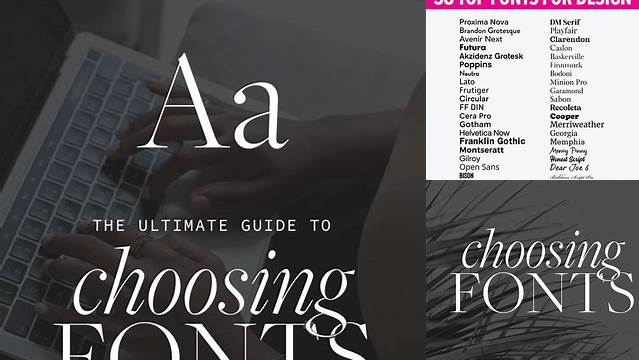
Best Graphic Design Font Websites: A Designer's Guide
Hey guys! Ever wondered where designers find those killer fonts that make websites and graphics pop? Well, you're in the right place! In this comprehensive guide, we'll dive deep into the world of graphic design fonts, exploring the best websites to snag them, how to choose the right ones, and some pro tips to make your designs shine. Whether you're a seasoned designer or just starting, this is your one-stop resource for all things typography.
What are Graphic Design Fonts and Why are They Important?
Let's start with the basics. Graphic design fonts are essentially the visual personalities of your words. They're the typefaces, the styles, the characters that bring text to life. They can be classic, modern, quirky, or elegant. They can whisper or shout. They can be the silent backbone of a design or the loud showstopper. The font you choose can make or break the entire look and feel of your project. It's like choosing the right outfit – it sets the tone and communicates a lot about the wearer (or, in this case, the brand or message).
Fonts are crucial because they impact readability. You could have the most brilliant content in the world, but if it’s written in a hard-to-read font, nobody will stick around to see it. Fonts establish visual hierarchy, guiding the reader's eye to important information. They convey brand personality. Think about it: a playful, bubbly font might be perfect for a children's website, while a sleek, professional font would suit a corporate site. Font selection directly affects user experience (UX), too. A well-chosen font improves UX by making content enjoyable and easier to consume. Fonts can also influence emotions. A script font can evoke a sense of luxury and sophistication, while a bold sans-serif font can create a sense of urgency and modernity. So, the right font enhances the message you're trying to get across and helps it resonate with your audience. Choosing the right font can be a bit overwhelming, especially with the sheer number of options out there. However, with the right knowledge, it becomes a fun challenge that allows you to explore the endless possibilities of visual communication. Let's look at some of the best websites for finding these typographic treasures!
Importance of Font Pairing
Choosing the right font goes beyond just picking a pretty typeface. Another important thing to consider is font pairing. Pairing different fonts together can create visual harmony and interest, but it's also easy to mess it up. The key is to find fonts that complement each other, not clash.
One popular approach is to pair a serif font (like Times New Roman or Garamond) with a sans-serif font (like Arial or Helvetica). Serifs have those little strokes at the ends of the letters, while sans-serif fonts don't. This can create a nice contrast that's easy on the eyes. You might use a serif font for your headings and a sans-serif font for your body text. Consider the styles. If you are using a very modern, bold sans-serif font, consider a more traditional, classic serif font. Avoid pairing fonts that are too similar, as they can look like a mistake. Also, consider the weight and the size of each font. When pairing fonts, aim for good balance. Try to create a balance between these different fonts, so that your design feels professional and easy to read.
Top Websites for Graphic Design Fonts
Okay, let's get into the good stuff: the websites! There are tons of places to find fonts online, from freebies to premium options. Here are some of the best and most popular websites for graphic design fonts:
- Google Fonts: This is a goldmine, especially for beginners. Google Fonts is completely free, and it offers a vast library of fonts that are easy to use and integrate into your websites. The site is user-friendly, with filters for various font properties such as serif, sans-serif, display, and more. All fonts are open source and are well-suited for web use.
- Adobe Fonts (formerly Typekit): If you're an Adobe Creative Cloud subscriber, you get access to Adobe Fonts. This is a massive library of high-quality fonts, and the integration with Adobe products is seamless. It's a subscription service, but it's well worth the investment for the quality and variety. It allows you to browse fonts easily. You can activate them directly from the Adobe apps you use. A cool thing is the font recommendations, which are helpful. It's also a fantastic resource for finding the newest fonts on the market.
- Font Squirrel: Font Squirrel is the holy grail of free fonts. They carefully curate their collection, ensuring the fonts are high-quality and license-friendly for commercial use. It's an excellent resource for designers on a budget. Font Squirrel also has a font identifier tool. This tool allows you to upload an image of a font and identify it, making it easier to find the fonts you want to use.
- DaFont: DaFont is another popular site with a massive selection of fonts. It's easy to browse and download fonts, but be extra cautious about the licenses. Always check the usage rights before using a font for commercial projects. This is a site that is really good for free font, it has a great variety, but always check the license!
- MyFonts: MyFonts is a giant in the font world. They offer a huge selection of fonts, from classic to contemporary. You can browse by font style, designer, and even see what's trending. They also have a font identification tool called WhatTheFont! which is super handy for identifying fonts from images.
- Creative Market: Creative Market isn't just for fonts; it's a marketplace for all sorts of design assets. But they have a fantastic selection of fonts, often created by independent designers. You can find some unique and creative fonts here.
- BeFonts: This website is a very popular website, a great resource for finding premium and free fonts. BeFonts offers a wide variety of fonts, including serif, sans-serif, script, and display fonts, carefully categorized for easy browsing. They also host font bundles and design resources to assist designers. For those looking for commercial-use fonts, BeFonts provides details on licensing and usage rights for each font.
How to Choose the Right Font for Your Design
Choosing the right font can feel like finding a needle in a haystack, but don't worry; we'll break it down. Here are some key factors to consider:
Consider Your Project's Purpose and Audience
Firstly, consider what the project is for. Is it for a website, a poster, a logo, or something else? Different projects have different requirements. The audience is key. Are you targeting a young demographic, a professional audience, or something in between? Your font choices should resonate with them. A playful font might be suitable for a children's website, but it would be unprofessional for a corporate one. Think about the message you want to convey and select a font that supports it. If you're designing a website, ensure the font is legible at various sizes and on different devices. For print materials, consider the printing process and the type of paper you'll be using.
Legibility
Legibility is king. The font should be easy to read at various sizes. Avoid overly decorative fonts that are difficult to decipher. Especially consider the size and the font. A font that looks great in a heading might be terrible for body text. Test your font at the size it will appear in your design.
Font Styles and Weights
Look at the font's different styles and weights. Does it have bold, italic, and various weights (light, regular, bold, etc.)? These options give you flexibility in your design and help you create emphasis and visual hierarchy.
Font Licensing
Always check the license. Make sure you understand the usage rights. Can you use the font for personal and commercial projects? Are there any restrictions? If you are using a free font, ensure that you have the rights to use it for your specific needs. If you're using a premium font, review the terms of the license carefully.
Pro Tips for Using Fonts Effectively
Now, let's get into some advanced tips to elevate your font game:
Hierarchy
Establish a clear visual hierarchy. Use different font sizes, weights, and styles to guide the reader's eye and show the importance of different elements. A larger, bolder font can grab attention, while smaller, lighter fonts can be used for body text.
Contrast
Use contrast to create visual interest. Pair a bold font with a lighter font. Experiment with different font sizes and weights. Try to pair a simple font with a more decorative one. Contrast helps to make your design more visually appealing.
Kerning and Tracking
Fine-tune the spacing between letters (kerning) and the spacing between words (tracking). This can significantly improve readability and the overall look of your design. Most design software allows you to adjust these settings to get the perfect fit.
Limit Your Font Choices
Don't go overboard! Stick to a few fonts (usually two or three) to maintain consistency and avoid a cluttered look. Too many fonts can make your design feel disorganized. Using too many fonts can make it hard to find the central message. Also, using too many fonts can make your design feel uncoordinated.
Consider Font Weights and Styles
Choose multiple weights and styles of the same font. This can make your design more dynamic without introducing multiple fonts.
Test on Different Devices
If you're designing for the web, test your fonts on different devices and browsers to ensure they look consistent and readable. Some fonts render differently depending on the platform.